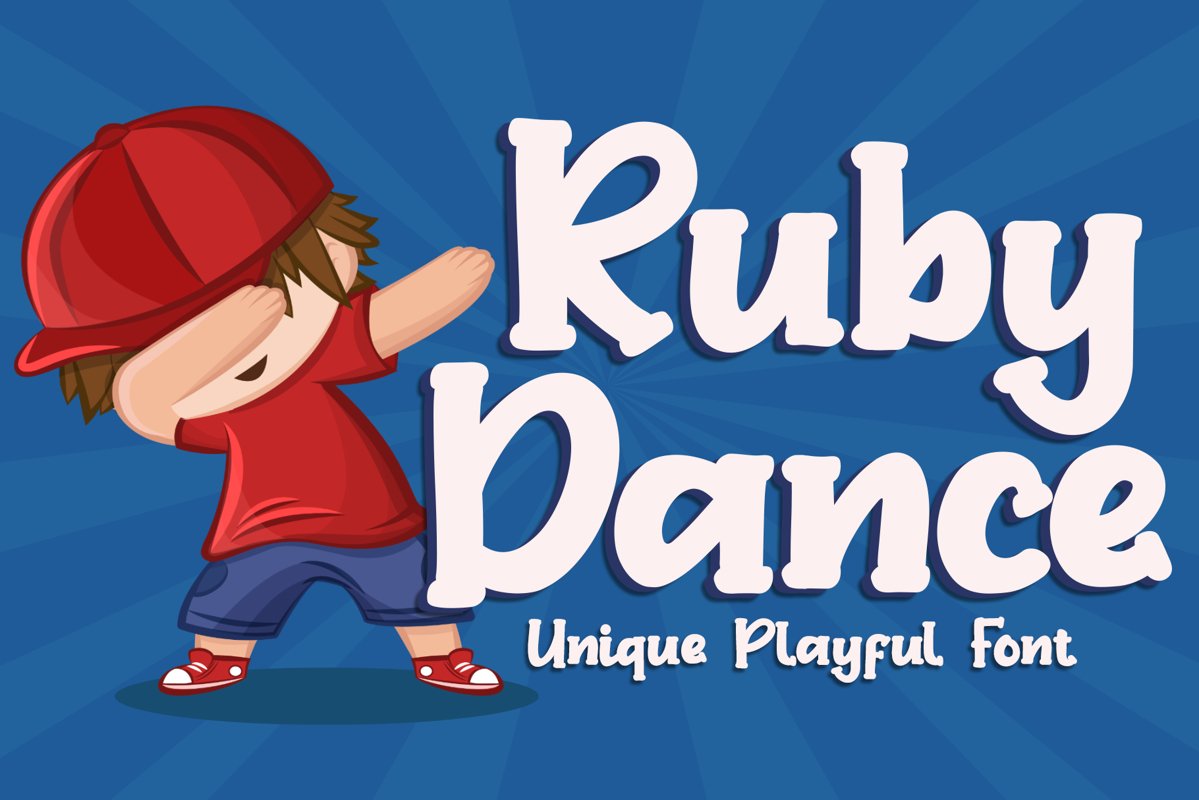
Ruby Dance - Playful Font
Ruby Dance Inspired by Playful style and combination with Hand Lettering style. Every single letters have been carefully crafted to make your text looks beautiful. I hope this can make inspire you from your work. Font is PUA encoded so you can access extras from character map in most design software.
Multilanguage Support